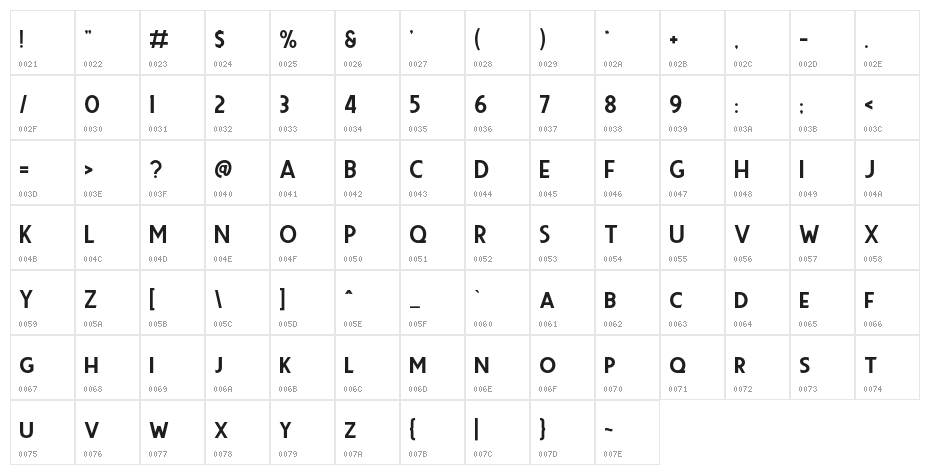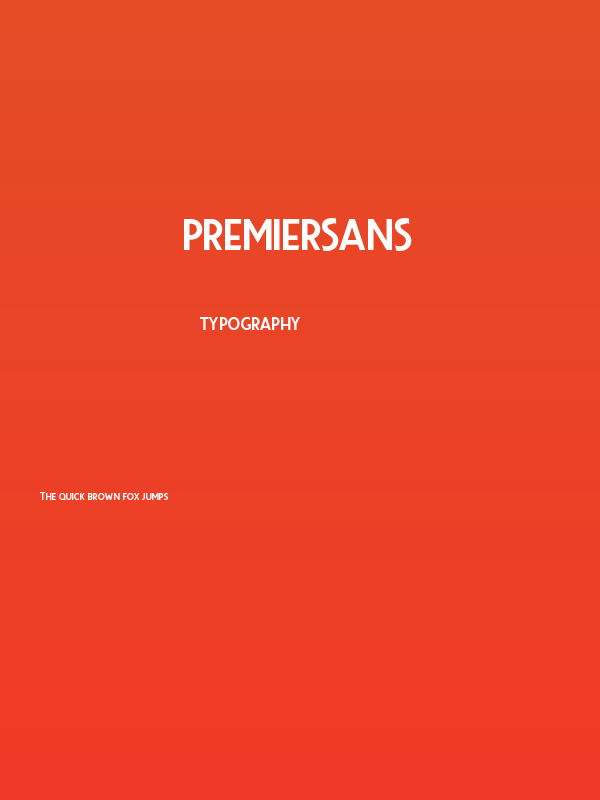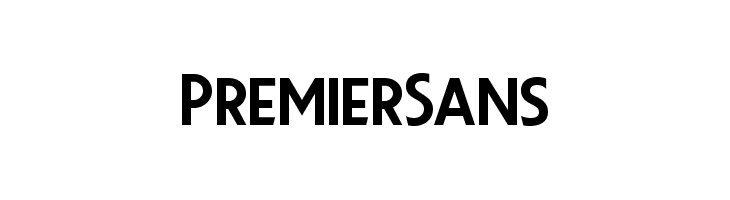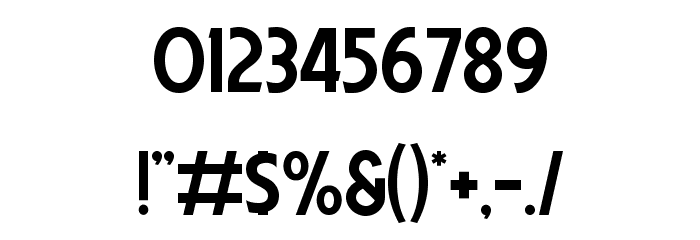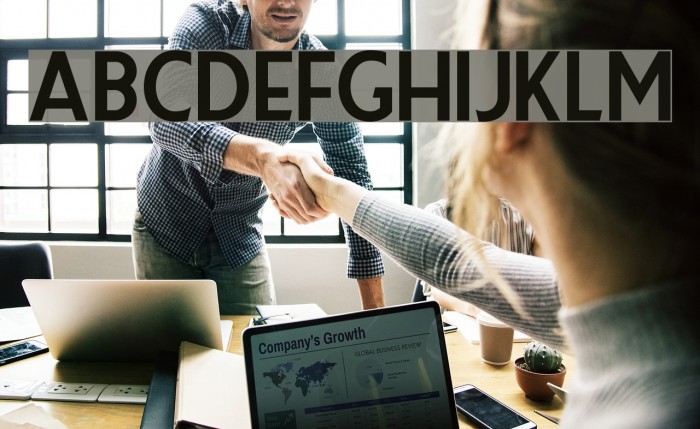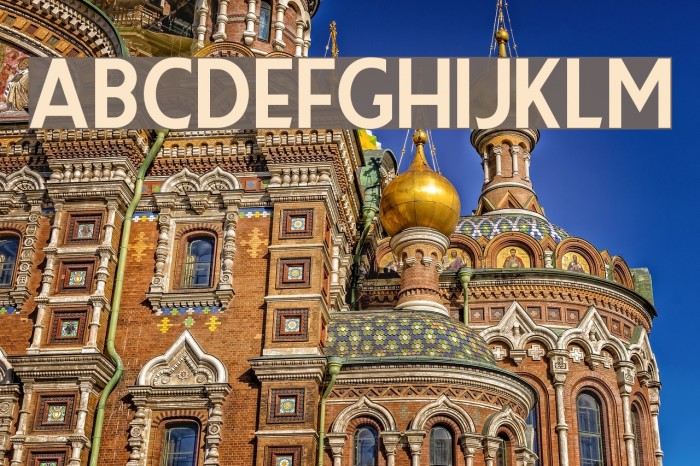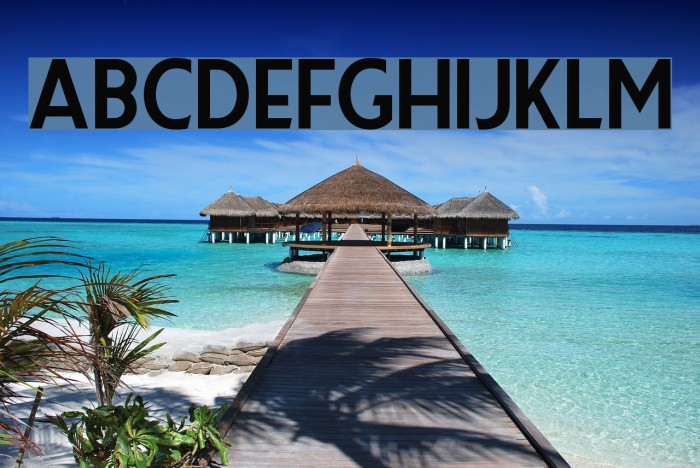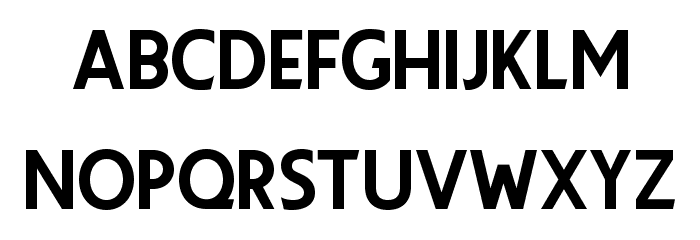
PremierSans Font
PremierSans Description
This font exhibits a clean and modern sans-serif style, characterized by its geometric shapes and uniform stroke widths. The uppercase letters are bold and assertive, while the lowercase letters maintain a consistent height and spacing, ensuring readability. The numerals are well-proportioned, aligning seamlessly with the overall design. Special characters are crafted with precision, complementing the font's contemporary aesthetic. This typeface is versatile, suitable for both digital and print media, offering clarity and impact in various applications.
| Use Case | Headlines, Logos, Digital Media |
| Proposed Projects | Ideal for branding, advertising, web design, and editorial layouts where clarity and modernity are essential. |
| Author | Fonts by TypeSETit |